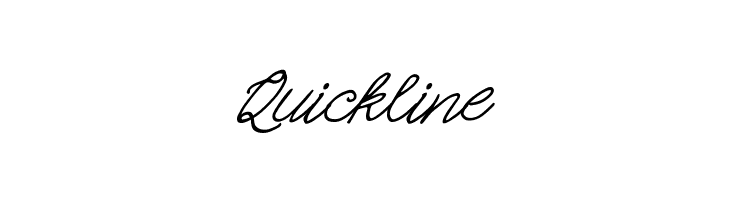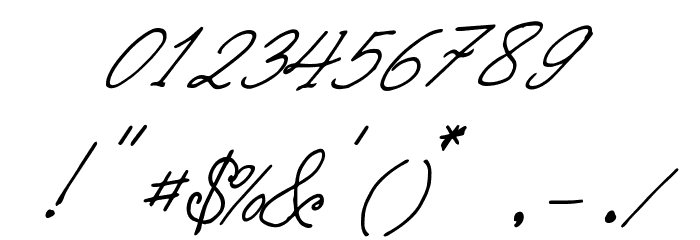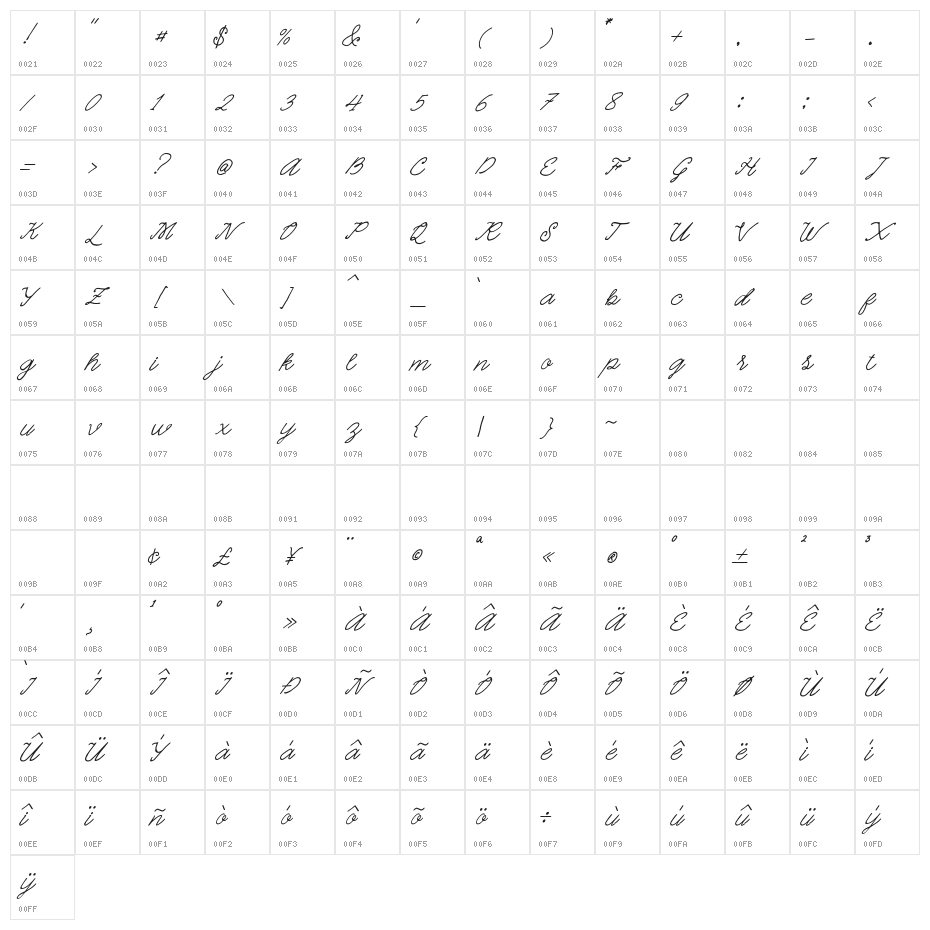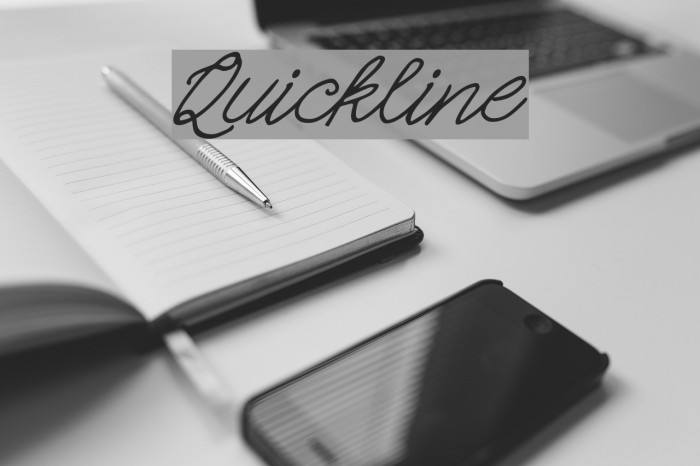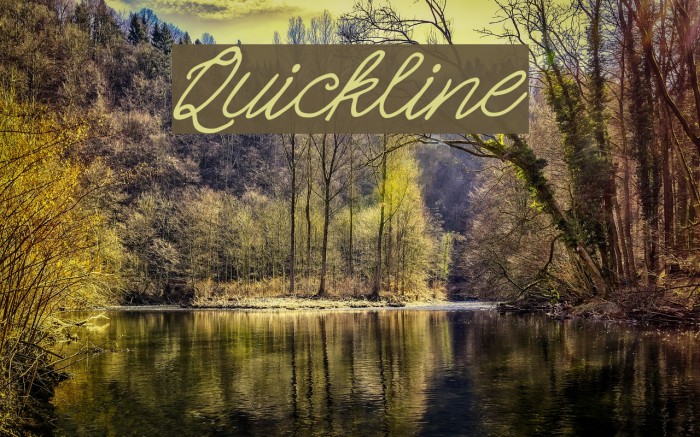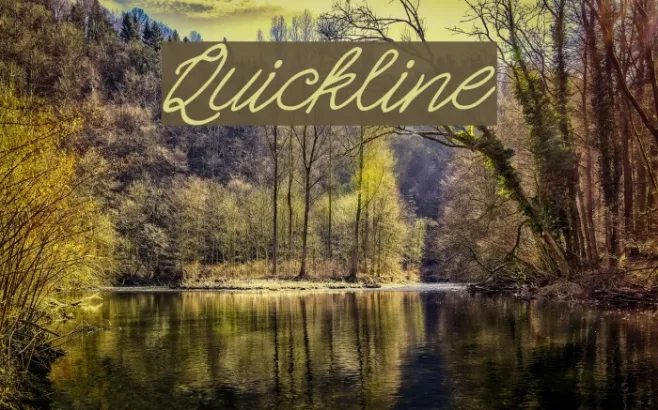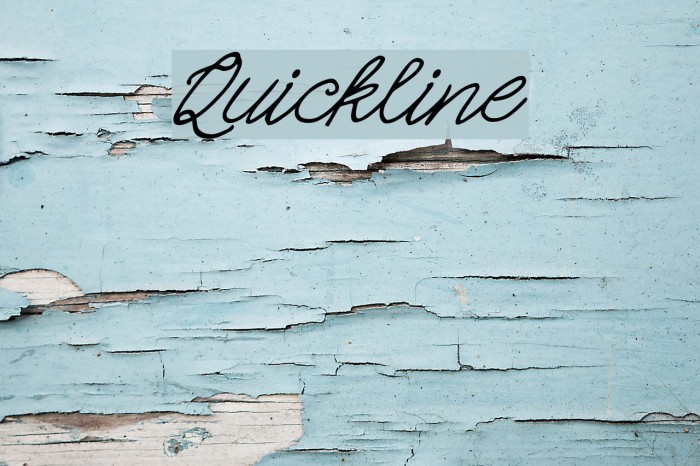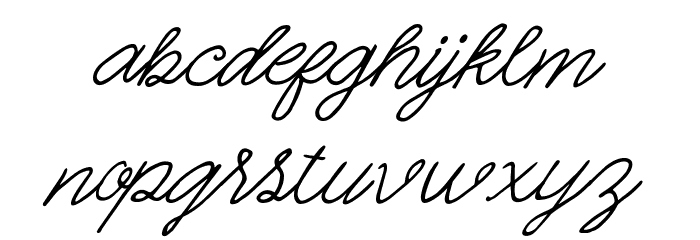
Quickline Font
Quickline Description
This elegant script font features a fluid, cursive style with smooth, flowing lines that mimic natural handwriting. The characters are connected, creating a seamless and sophisticated appearance. The uppercase letters are slightly more ornate, with graceful loops and swirls, while the lowercase letters maintain a consistent and harmonious flow. The numerals and special characters are designed to complement the overall aesthetic, maintaining the same cursive style. This font exudes a sense of elegance and refinement, making it ideal for formal invitations, branding, and decorative purposes.
| Use Case | Headlines, Invitations, Decorative text |
| Proposed Projects | Ideal for wedding invitations, elegant branding, greeting cards, and decorative signage. |